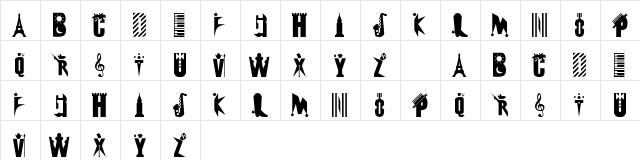
101! Abstrakt Design Regular Font Preview
101! Abstrakt Design Regular
Design Context for 101! Abstrakt Design Typeface
101! Abstrakt Design is a composed and adaptable typeface that performs quietly and consistently across a wide range of design contexts.